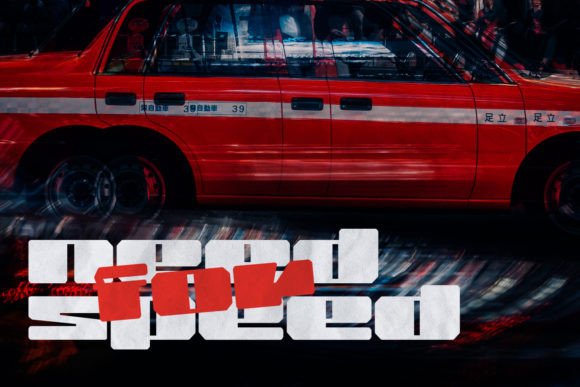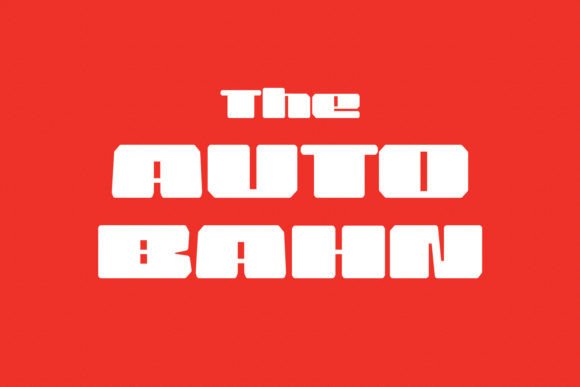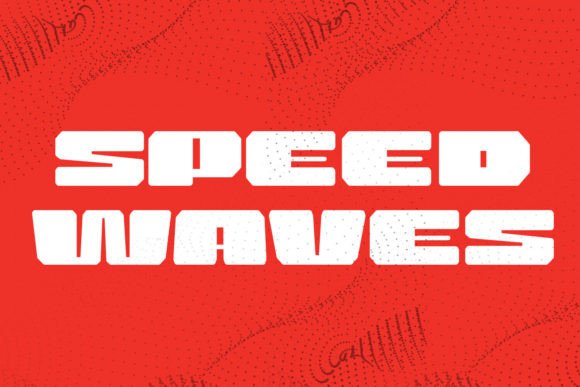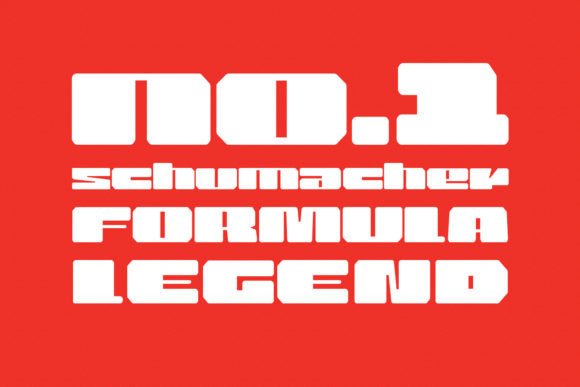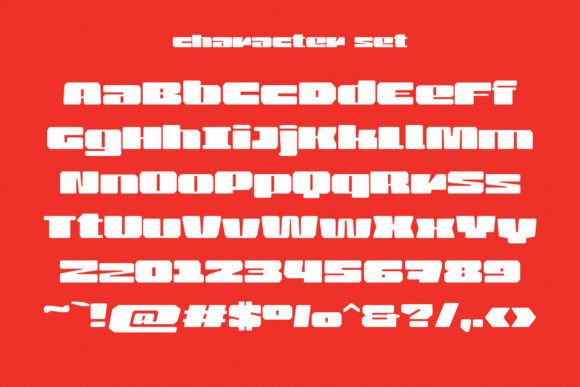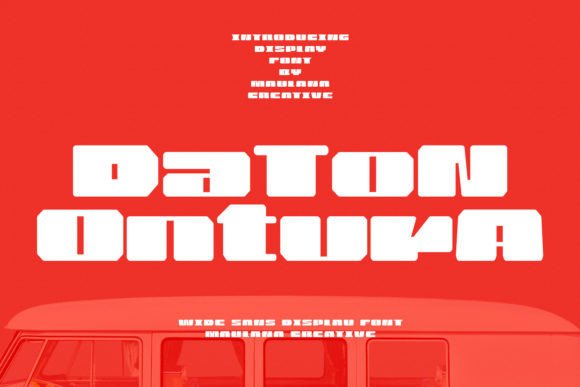
Introducing Daton Ontura Font: A Wide Sans Display Font for Stunning Designs
Are you looking for a font that can add a touch of fun and personality to your designs? Look no further than Daton Ontura, a wide sans display font that’s perfect for creating stunning works of art. With its heavy stroke, fun character, and ligature and stylistic features, Daton Ontura is an excellent choice for designers and crafters who want to make a statement.
What Makes Daton Ontura Special?
Daton Ontura is a unique font that offers a range of features that set it apart from other fonts. Its wide sans design makes it perfect for headlines, titles, and short texts, while its heavy stroke gives it a bold and eye-catching appearance. The font also features fun characters, ligatures, and stylistic alternates, which allow you to add a touch of personality to your designs.
Daton Ontura is a versatile font that can be used for a wide range of design projects. Its bold and eye-catching appearance makes it perfect for:
- Logo Design: Create a lasting impression with a bold and eye-catching logo that showcases your brand’s personality.
- Social Media: Stand out on social media with eye-catching graphics and posts that feature Daton Ontura.
- Movie Titles: Create a dramatic and attention-grabbing title sequence for your movie or video project.
- Books Titles: Add a touch of elegance and sophistication to your book covers with Daton Ontura.
Great for Short and Long Texts
While Daton Ontura is designed as a display font, it’s also suitable for short and even long texts. Its clear and legible design makes it easy to read, even at smaller sizes. This makes it perfect for:
- Headlines and Subheadings: Use Daton Ontura to create bold and eye-catching headlines and subheadings that draw attention to your content.
- Body Text: While not recommended for extended blocks of text, Daton Ontura can be used for short paragraphs or sections of body text to add visual interest.
Pairing Daton Ontura with Other Fonts
One of the best things about Daton Ontura is its versatility when it comes to pairing it with other fonts. Its bold and eye-catching design makes it perfect for pairing with:
- Script Fonts: Add a touch of elegance and sophistication to your designs by pairing Daton Ontura with a script font.
- Serif Fonts: Create a striking contrast by pairing Daton Ontura with a serif font, perfect for body text or secondary text.
Get Creative with Daton Ontura
Daton Ontura is a font that’s designed to inspire creativity and help you produce stunning works of art. With its unique features and versatility, it’s perfect for designers and crafters who want to push the boundaries of what’s possible. So why wait? Download Daton Ontura today and start creating your own stunning designs!
Key Features of Daton Ontura Font
- Wide Sans Display Font: Perfect for headlines, titles, and short texts.
- Heavy Stroke: Gives the font a bold and eye-catching appearance.
- Fun Character: Adds a touch of personality to your designs.
- Ligature and Stylistic Features: Allows you to add a touch of elegance and sophistication to your designs.
In conclusion, Daton Ontura is a versatile and eye-catching font that’s perfect for designers and crafters who want to create stunning works of art. Its unique features, bold design, and versatility make it an excellent choice for a wide range of design projects. So why wait? Download Daton Ontura today and start creating your own stunning designs!